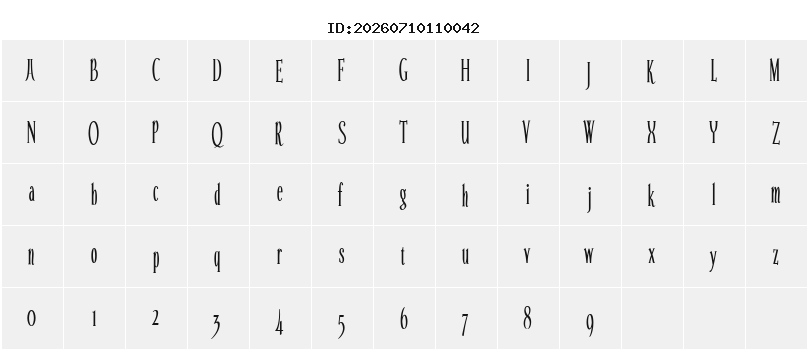
• Font Name: Echelon Condensed
• Designer: Ray Larabie
About Echelon Condensed.ttf
Echelon Condensed.ttf is a modern, elegant sans-serif font designed for ultimate readability and visual harmony. Perfect for branding, headlines, web design, and print materials.